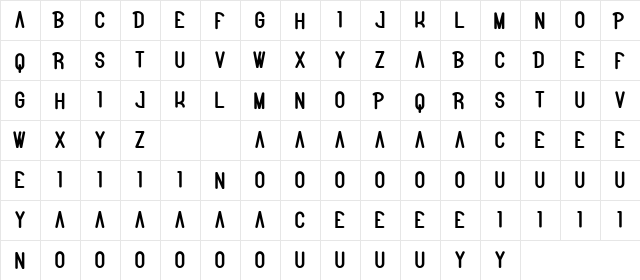
Bitter Space Demo Bold
Design Context for Bitter Space Demo Typeface
Bitter Space Demo offers clean, dependable letterforms without strong stylistic allegiance, making it a practical choice for designers who need flexibility. Its bold stroke weight gives it real presence on the page.
Pro Tip: Use Bitter Space Demo in both headline and body roles to test its range before committing to a single application.